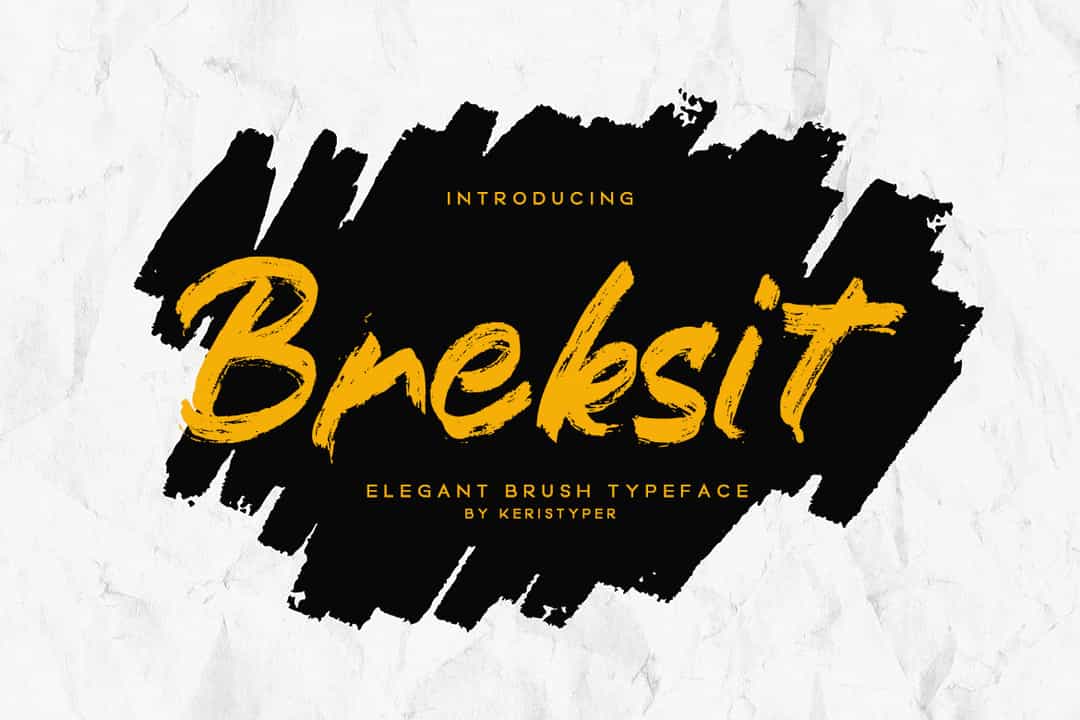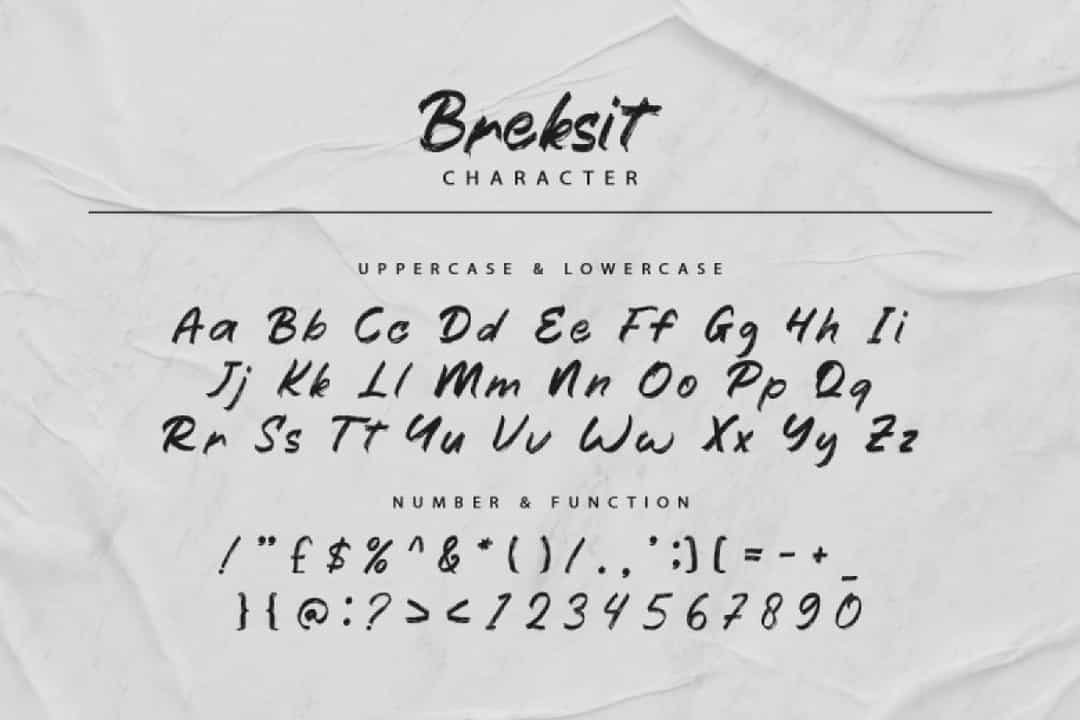
Breksit, a Brush Font created from natural hand-drawn brush style with an adventure theme and bold design features, is ideal for use on badges, logos and badge packaging, posters, branding as well as book covers.